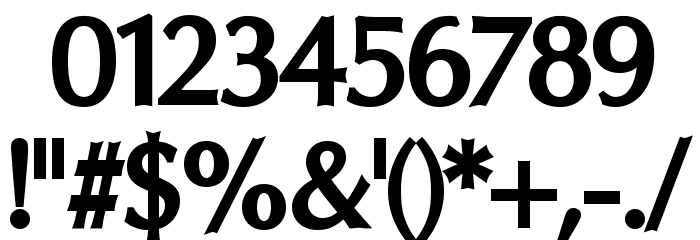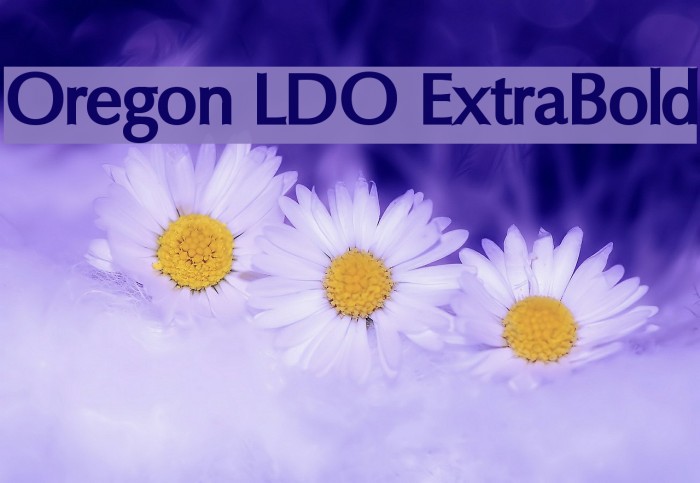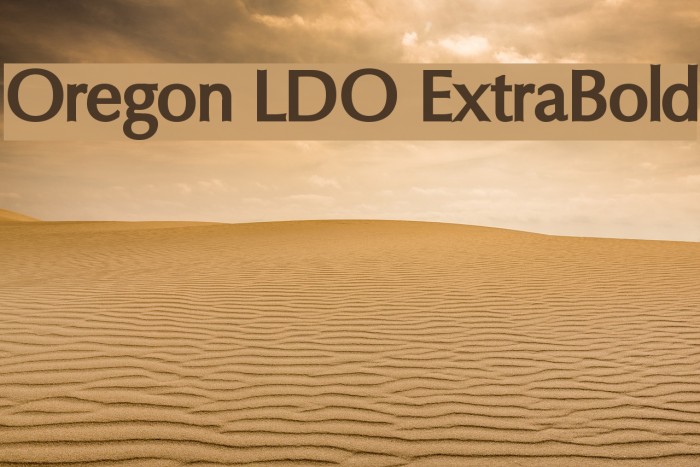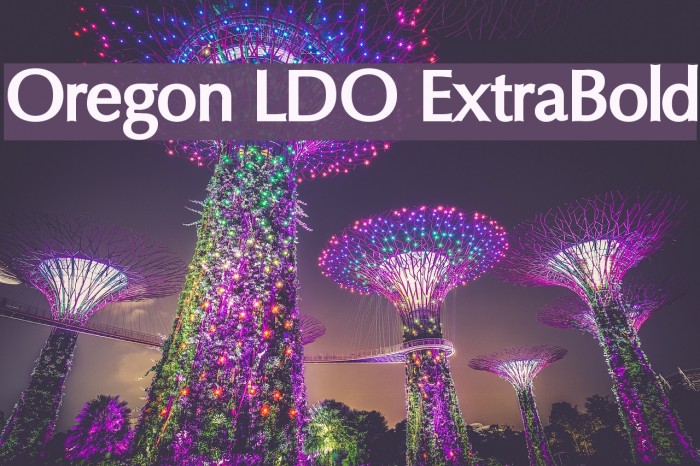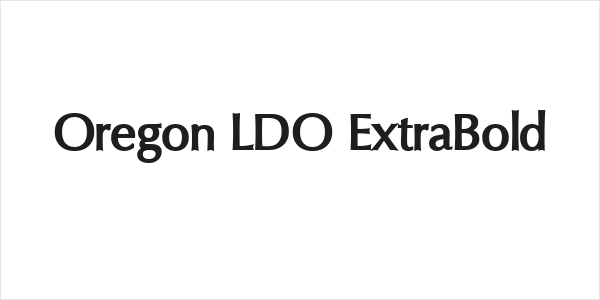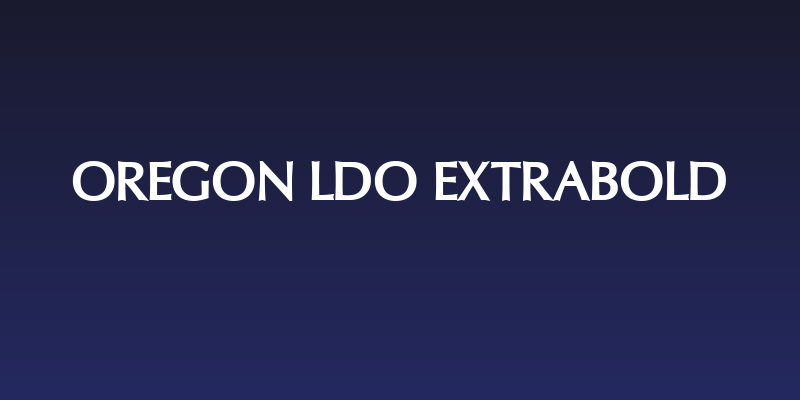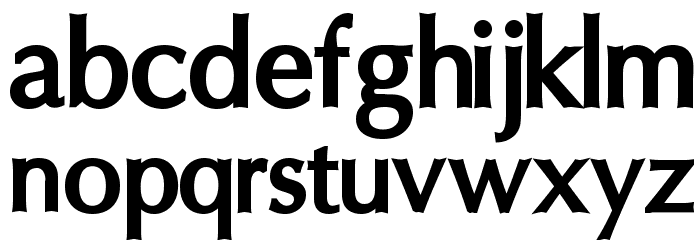
Oregon LDO ExtraBold Font
Oregon LDO ExtraBold Description
This font features a bold and commanding presence with its extra bold weight, making it ideal for attention-grabbing headlines and impactful designs. The characters are well-defined with a modern aesthetic, showcasing clean lines and a balanced structure. The uppercase letters are slightly condensed, providing a compact yet powerful look, while the lowercase letters maintain a consistent flow with rounded edges that soften the overall appearance. The numerals are clear and legible, ensuring readability in various contexts. Special characters are included, offering versatility for diverse design needs.